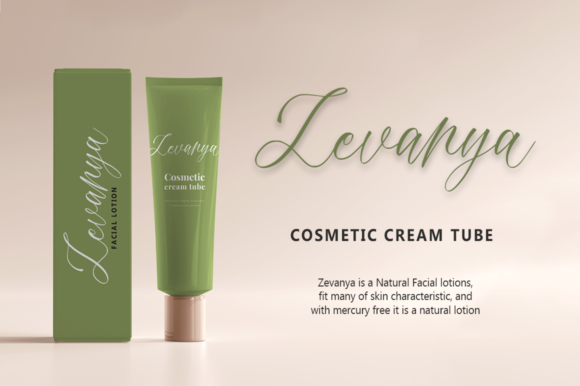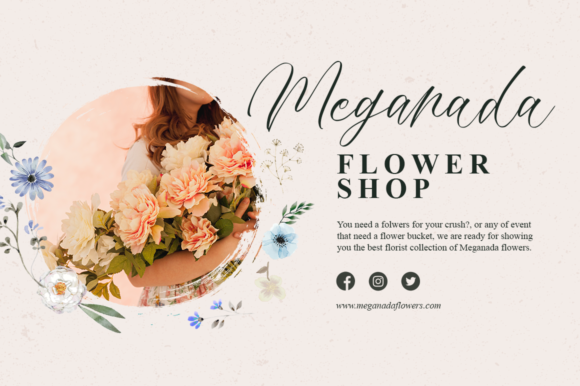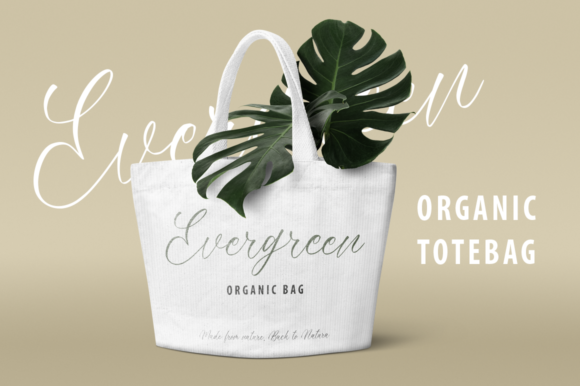
Introduction to Magelista Font
As a designer, you’ve probably experienced that moment when you stumble upon a font that perfectly captures the essence of your creative project. For me, that moment came when I discovered the stunning Magelista Font. Its elegant script style immediately caught my attention, and I knew I had to learn more about it.
| 📌 Product Name | Magelista Font |
| 👤 Author | NissaStudio |
With its versatility and high-quality design, Magelista Font is a valuable resource for designers looking to add a touch of sophistication to their work. Whether you’re creating a wedding invitation, a thank you card, or a logo, this font is sure to make your design stand out. Plus, its transparent background and PUA encoding make it easy to access and customize, even for free download.
Key Features of Magelista Font
- High-quality design resource ideal for creative projects, offering a unique and elegant style.
- Magelista Font is available in multiple weights and styles, providing a versatile design solution for various creative applications.
- Designed with high-resolution graphics in mind, the font is suitable for both print and digital design projects.
- Perfect for designers seeking a high-quality, free design resource that adds a touch of sophistication to their creative projects.
Honest Review: Magelista Font
I recently stumbled upon the Magelista Font, and I must say it’s been a game-changer for my creative projects. This design resource has everything I need to elevate my work to the next level.
- ✨ Beautiful, high-quality font with a unique touch
- ✨ Perfect for projects that require a touch of elegance and sophistication
- ✨ Can be used for both digital and print designs
One of the standout features of the Magelista Font is its transparent background, which allows for seamless integration with any design. It’s also incredibly easy to use, even for beginners.
- ⚠️ Limited language support, which may be a concern for designers working with multiple languages
- ⚠️ Not ideal for projects that require a bold, attention-grabbing font
Overall, I’m thoroughly impressed with the Magelista Font. It’s a high-quality design resource that has already made a significant impact on my creative projects. I highly recommend it to anyone looking to add a touch of sophistication to their designs.
Tips for Getting the Most Out of Magelista Font
Use the Magelista Font in conjunction with a transparent background to create visually striking designs. Experiment with different font sizes and colors to add depth and interest to your project.
The Magelista Font is ideal for creative projects that require a high-quality, professional font. It’s particularly useful for designers, artists, and marketers looking to add a touch of elegance to their designs.